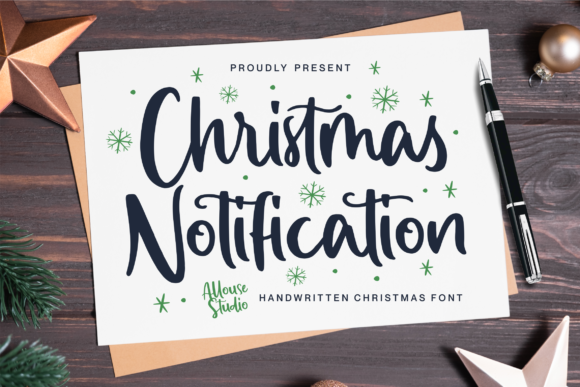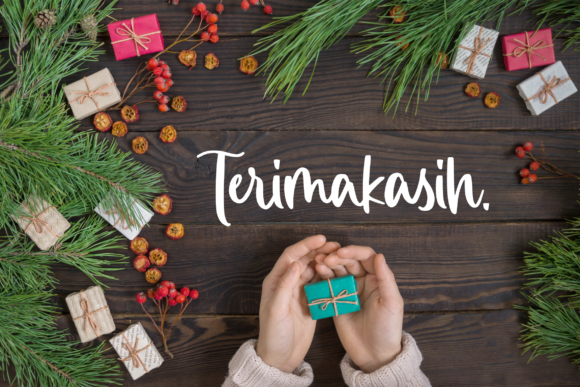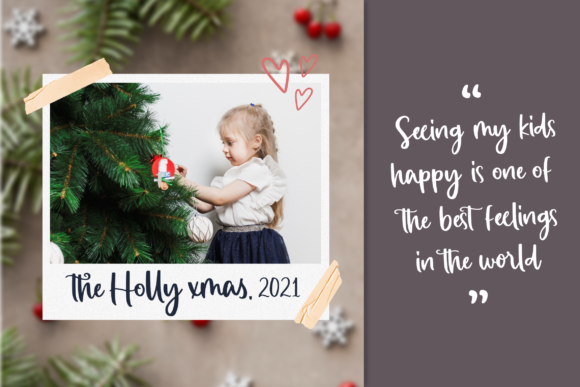
About Christmas Notification Font
Christmas Notification is a lovely handwritten font with nice rounded characters and a beautifully flowing style. This typeface is perfect for product packaging, magazines, social media, weddings, or just used to express words above the background.